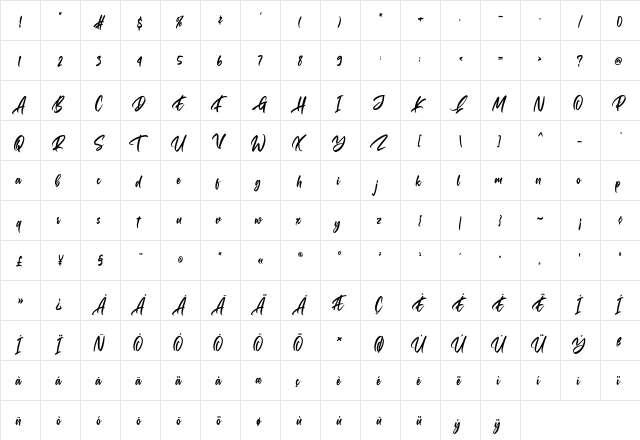
Gallardo Regular
| Foundry | Motokiwo |
| Designer | Anton Cahyono |
Design Context for Gallardo Typeface
Gallardo is a composed and adaptable typeface that performs quietly and consistently across a wide range of design contexts.